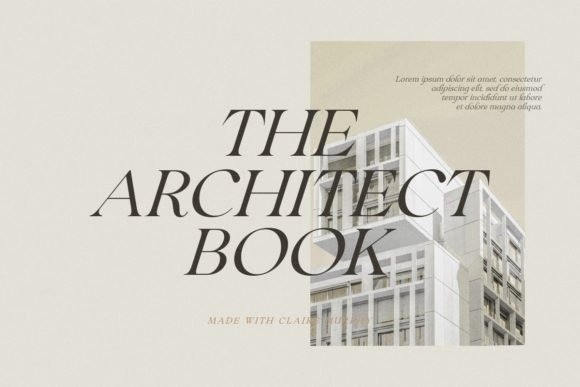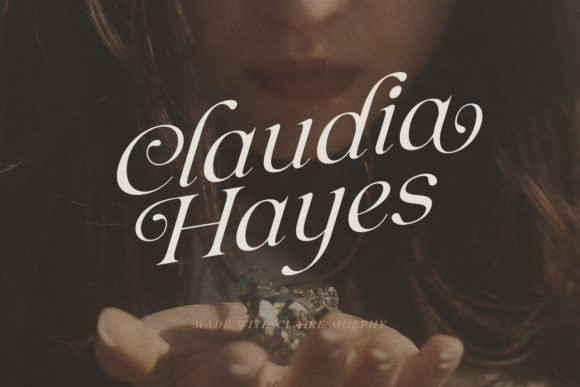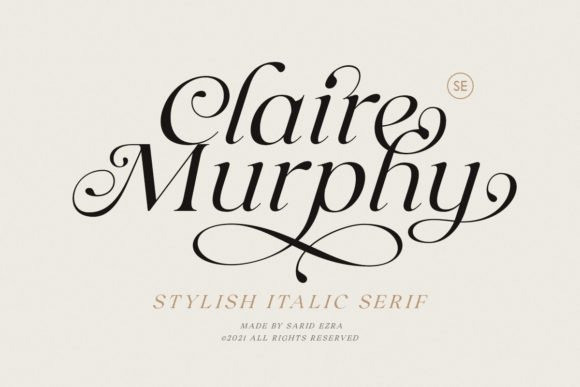
Claire Murphy Font
Claire Murphy Serif Font
This font is both modern and nostalgic and works great for logos, magazine, social media etc. Made from font designer named saridezra. Its flexibility and neat style will brighten up each of your designs. Have fun with this cool font and explore its endless variations. This font is PUA encoded which means you can access all of the glyphs and swashes with ease!